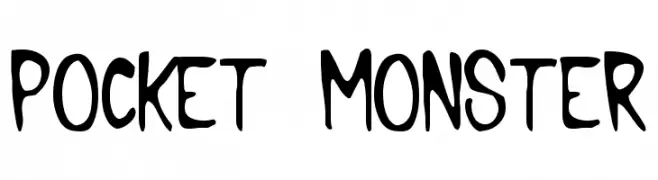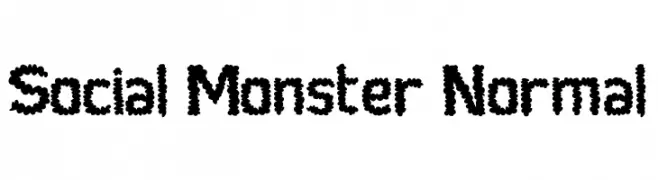
A bold, playful font with a hand-drawn, whimsical style.
A lively and dynamic script font with fluid, cursive letterforms and elegant strokes.
A lively, flowing script font with elegant cursive strokes.
A bold, playful font with a hand-painted, brush stroke style.
A bold, playful font with jagged, irregular shapes and a dynamic style.
A bold, playful font with exaggerated curves and a whimsical style.
A bold, italic font with a dynamic and energetic style.
A bold, playful font with an oblique slant and rounded characters.
A bold, energetic handwritten font with a playful and casual style.
A bold, geometric font with angular shapes and a modern style.
A bold, dynamic script font with a modern, energetic style.
A spooky, jagged font with a horror-themed aesthetic.
A bold, pixelated font with a retro video game aesthetic.
A bold, pixelated font with a retro, digital aesthetic.
A playful and whimsical font with rounded and angular elements, perfect for fun and creative projects.
A bold, jagged font with sharp edges and dynamic slant.
A playful, bold font with thick, rounded characters and a hand-drawn feel.
A bold, playful font with quirky, cartoonish character shapes.
A jagged, energetic font with a hand-drawn, chaotic style.
A bold, hand-painted style font with an expressive and dynamic appearance.
A bold, hand-drawn font with textured, playful characters.
A bold, spooky font with a dripping effect, ideal for Halloween themes.
A playful, dinosaur-themed decorative font with bold, rounded characters and integrated footprints.
A playful, dinosaur-themed font with bold, patterned characters.
A playful, dinosaur-themed decorative font with bold, rounded characters.
A dynamic and fluid handwritten font with a playful yet elegant style.
Bold, italicized racing-inspired display font.
Distorted, jagged display font with a chaotic, horror-inspired style.
Bold, distressed display font with jagged, brush-like edges.
A quirky, spooky display font with tall, uneven characters.
A bold, horror-themed display font with dripping, textured letterforms.
A decorative Halloween-themed font featuring cartoonish monster illustrations.